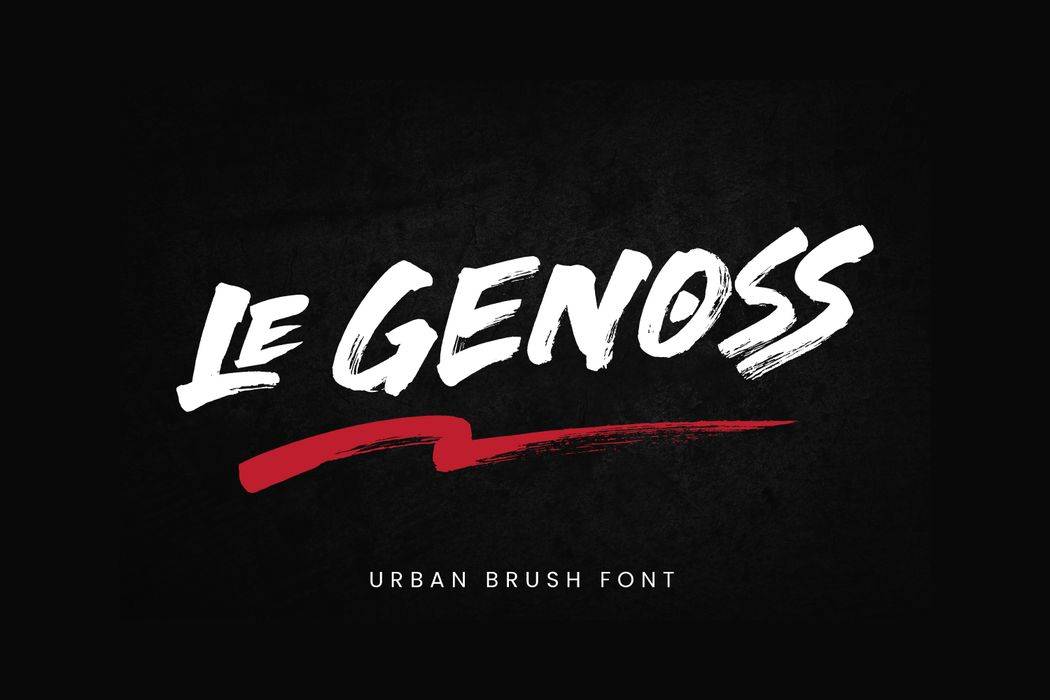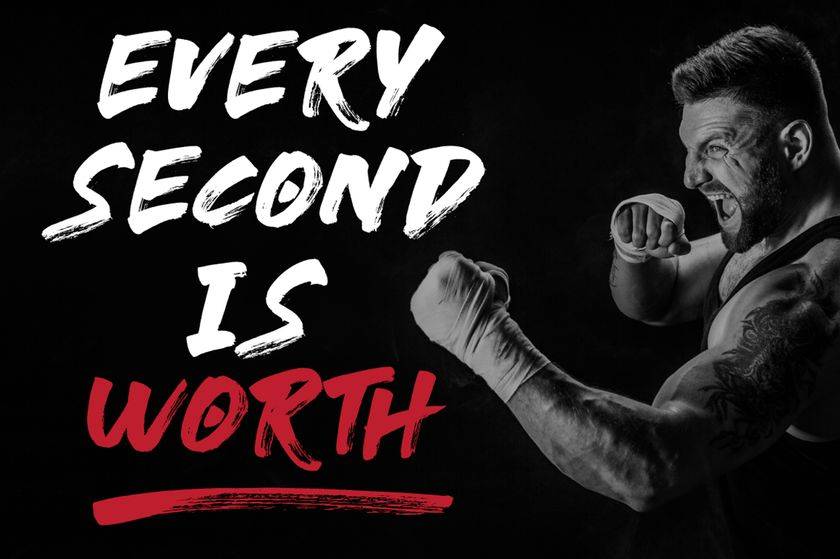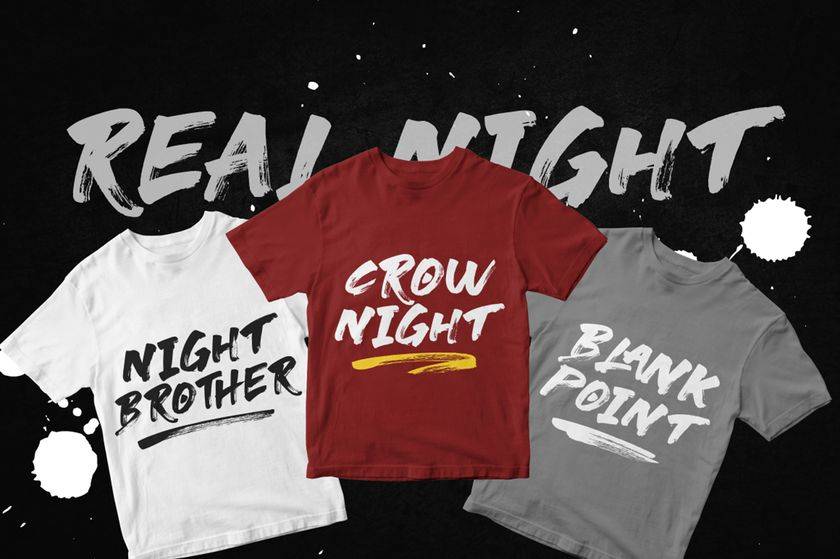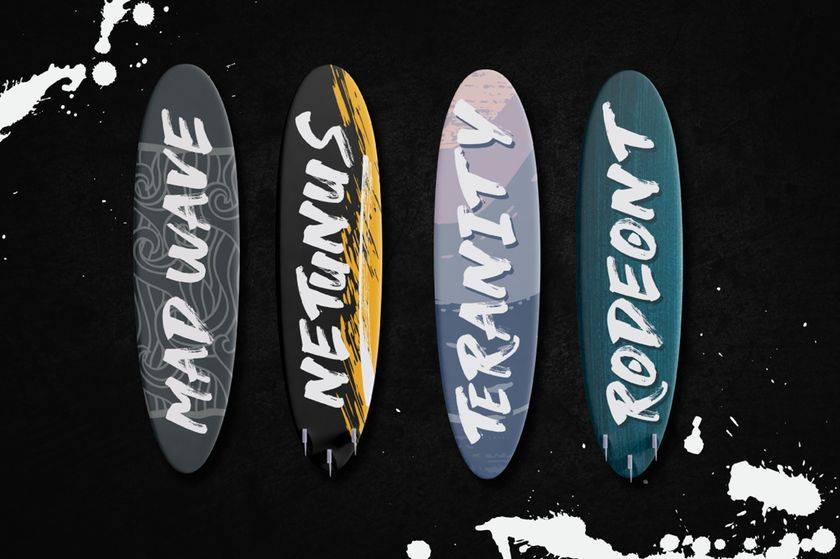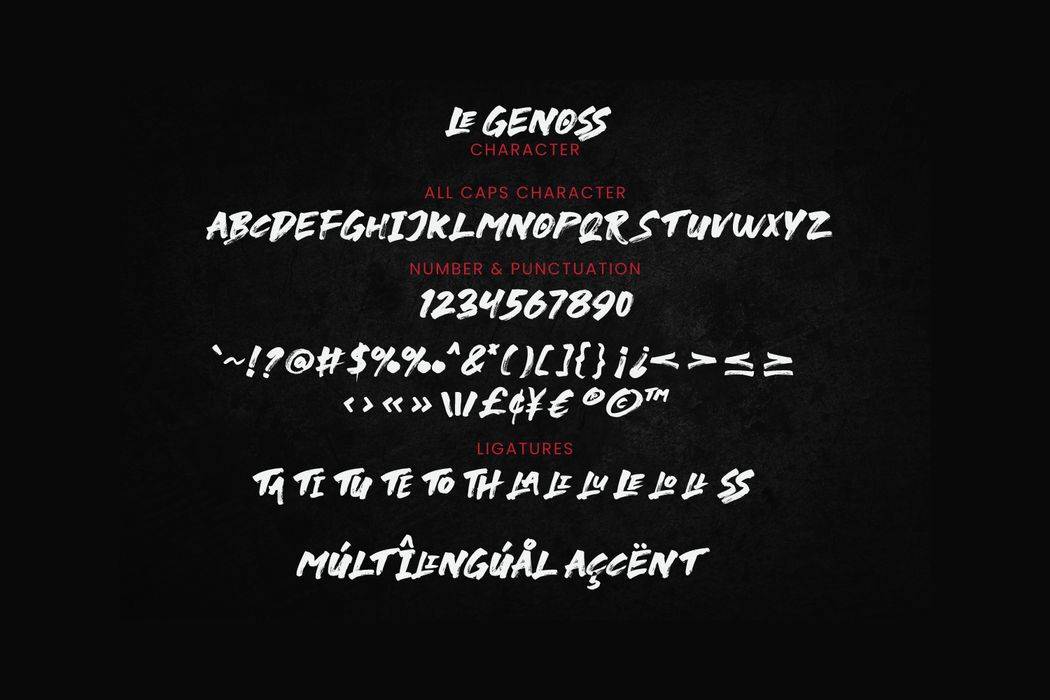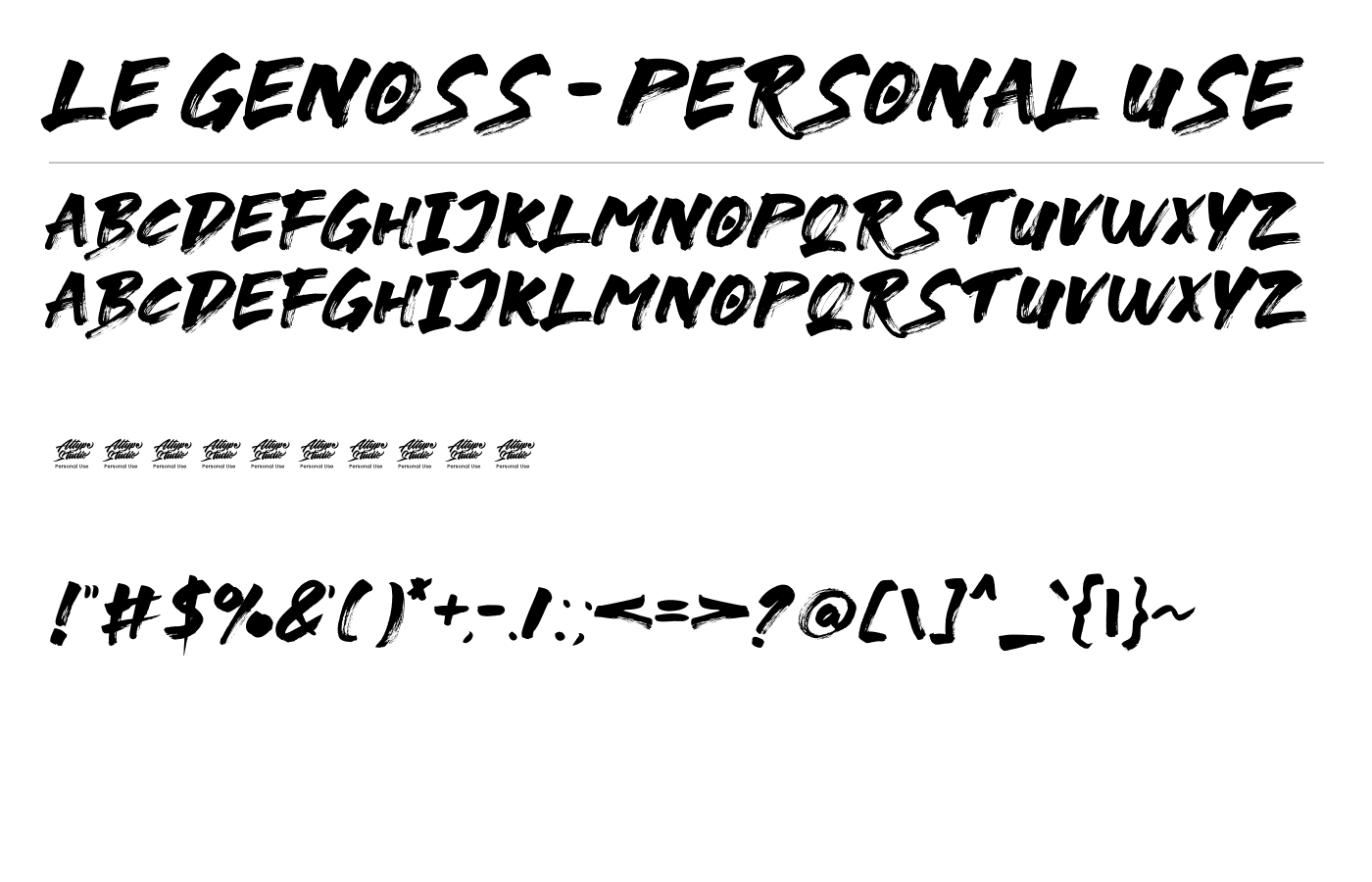
Le Genoss is an energetic, bold brush script font with a strong hand-painted texture that gives it a raw, expressive personality. Its thick, uneven strokes and lively letterforms make it perfect for creative projects seeking a casual, dynamic feel, such as logos, posters, and branding that stand out with a handcrafted, artistic touch. This font works best where a bold, informal style is needed to convey energy and originality.
Le Genoss Font
About Le Genoss Font
| Font family | Le Genoss Font |
| Designer | Fadli Ramadhan Iskandar |